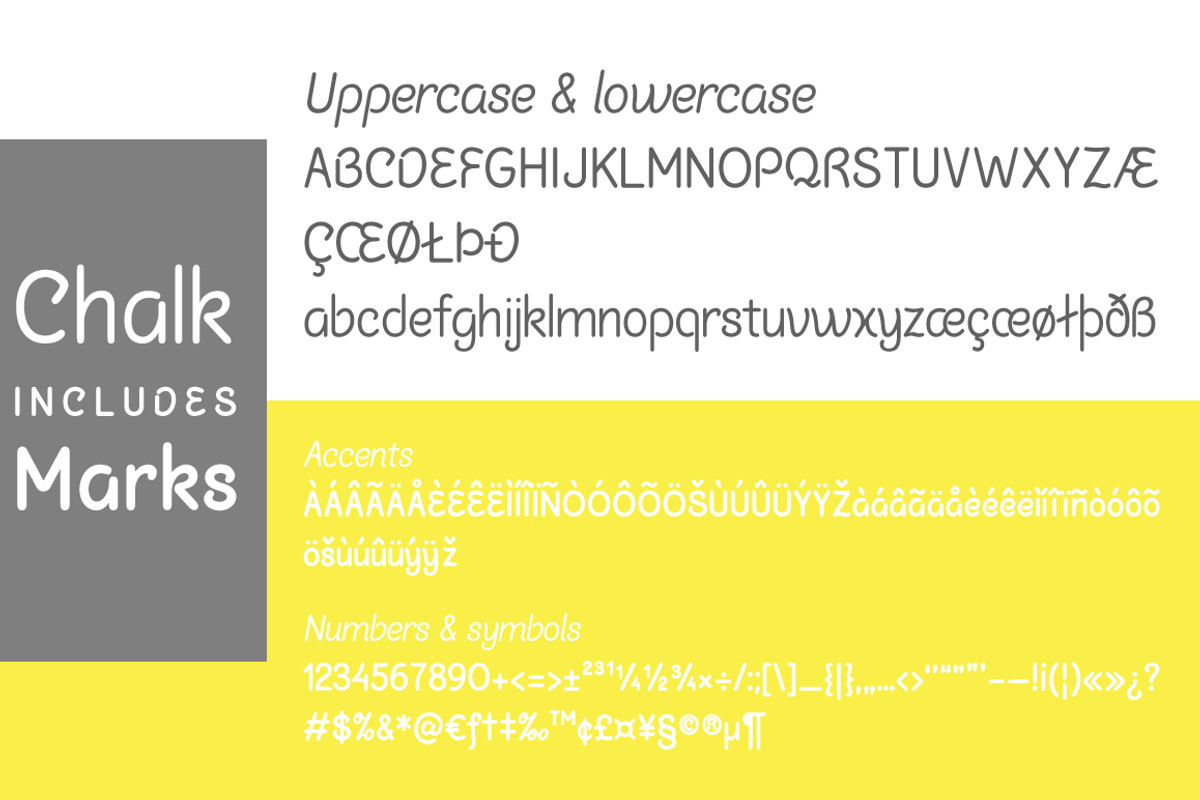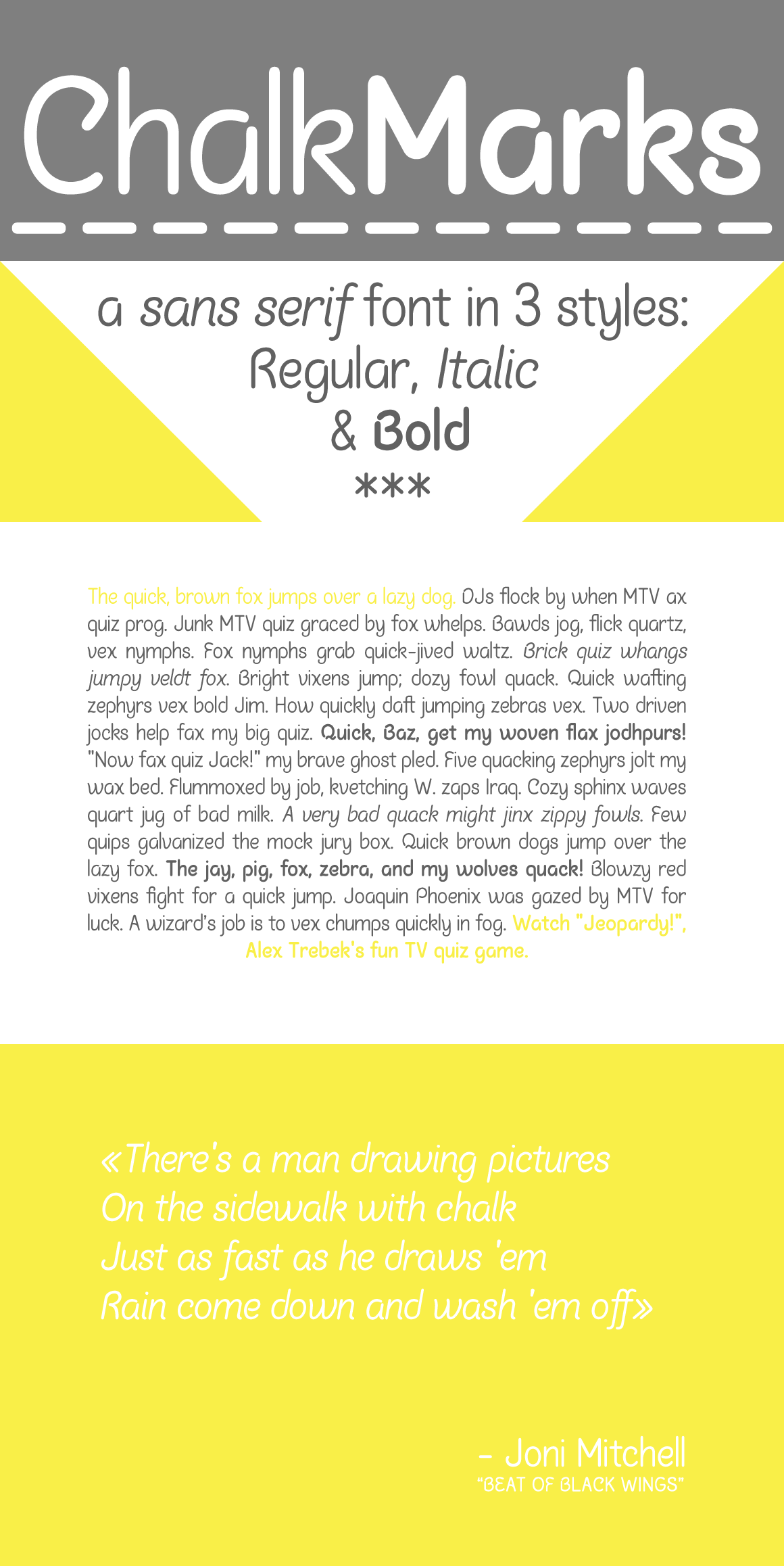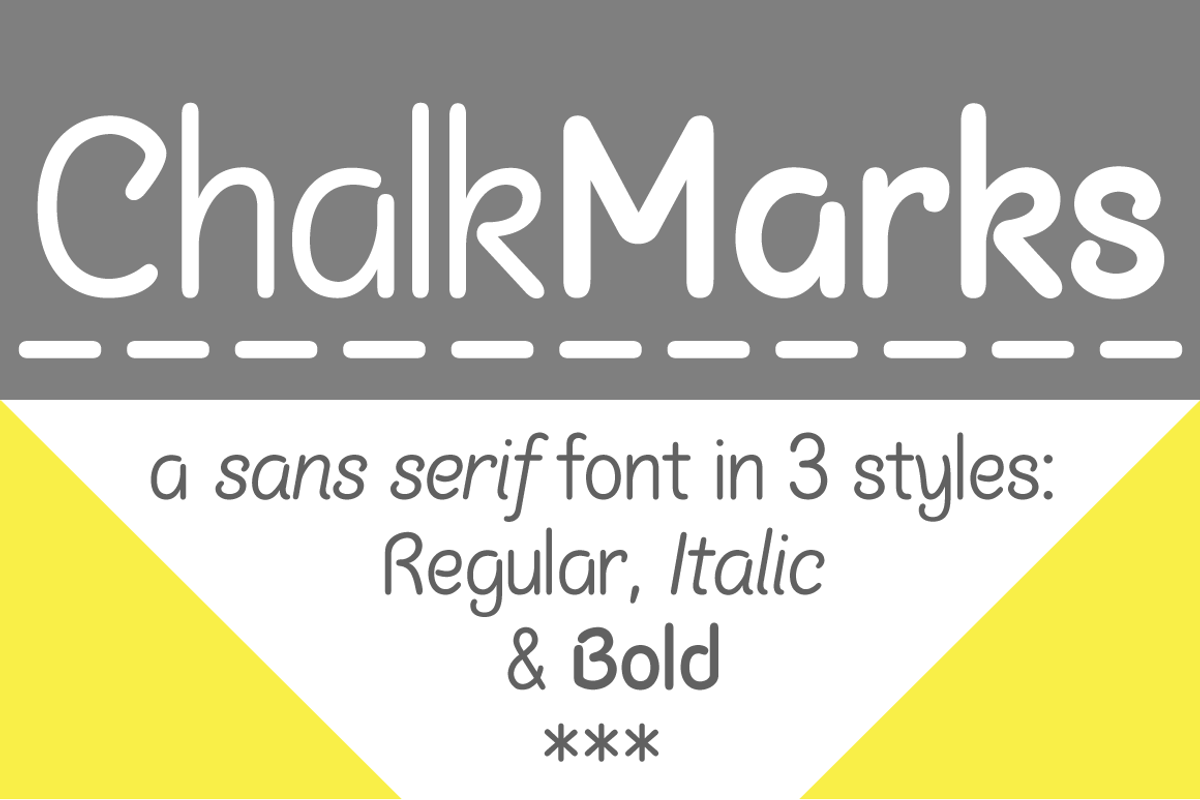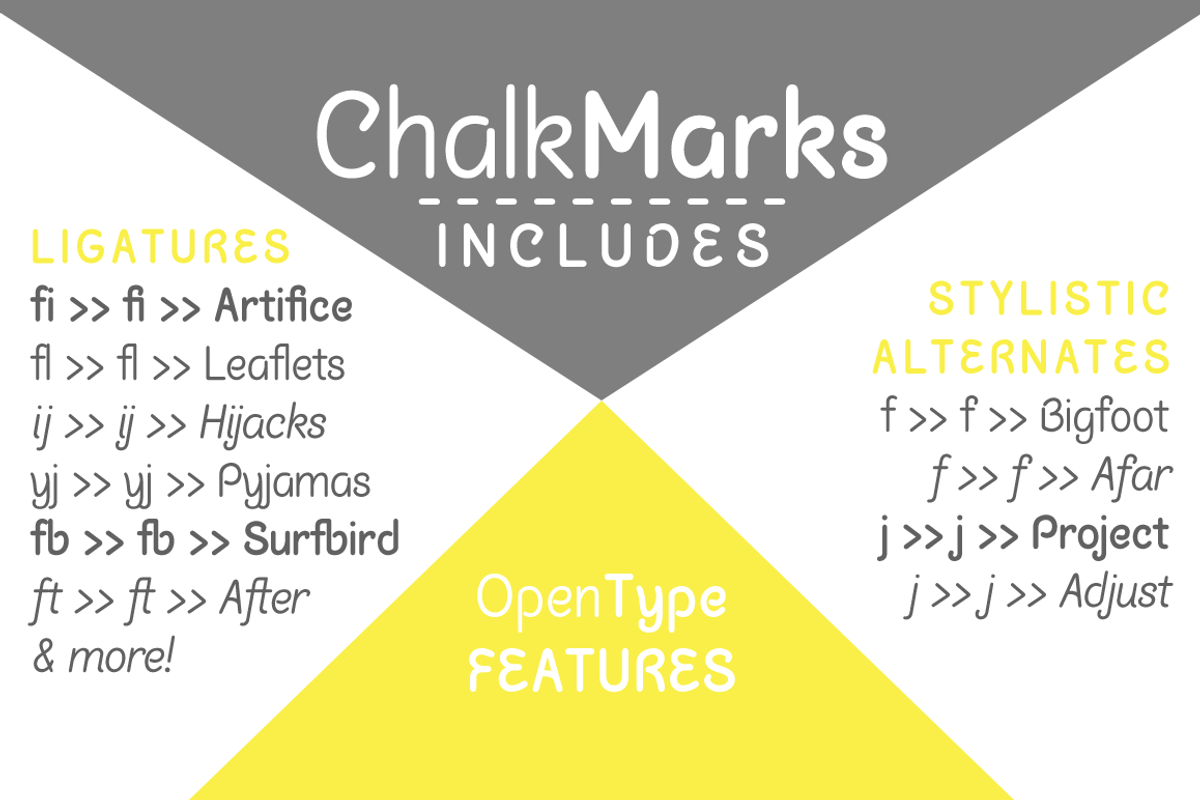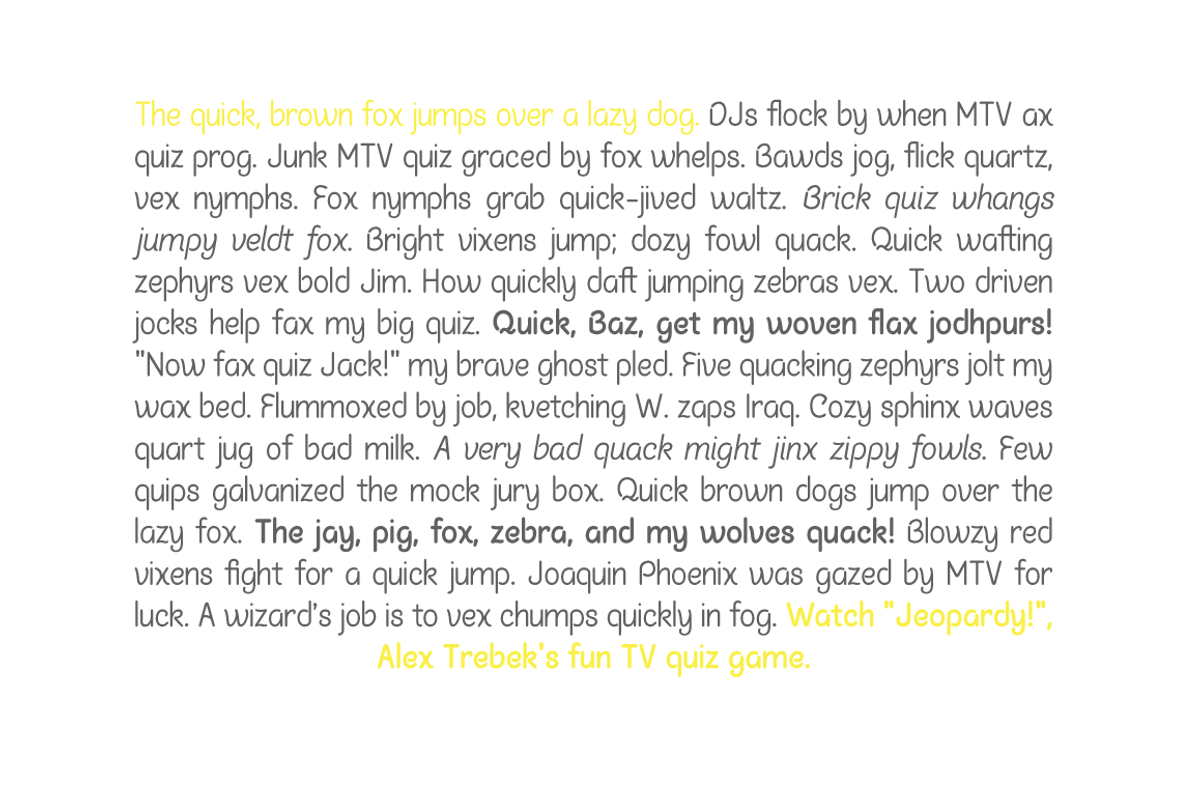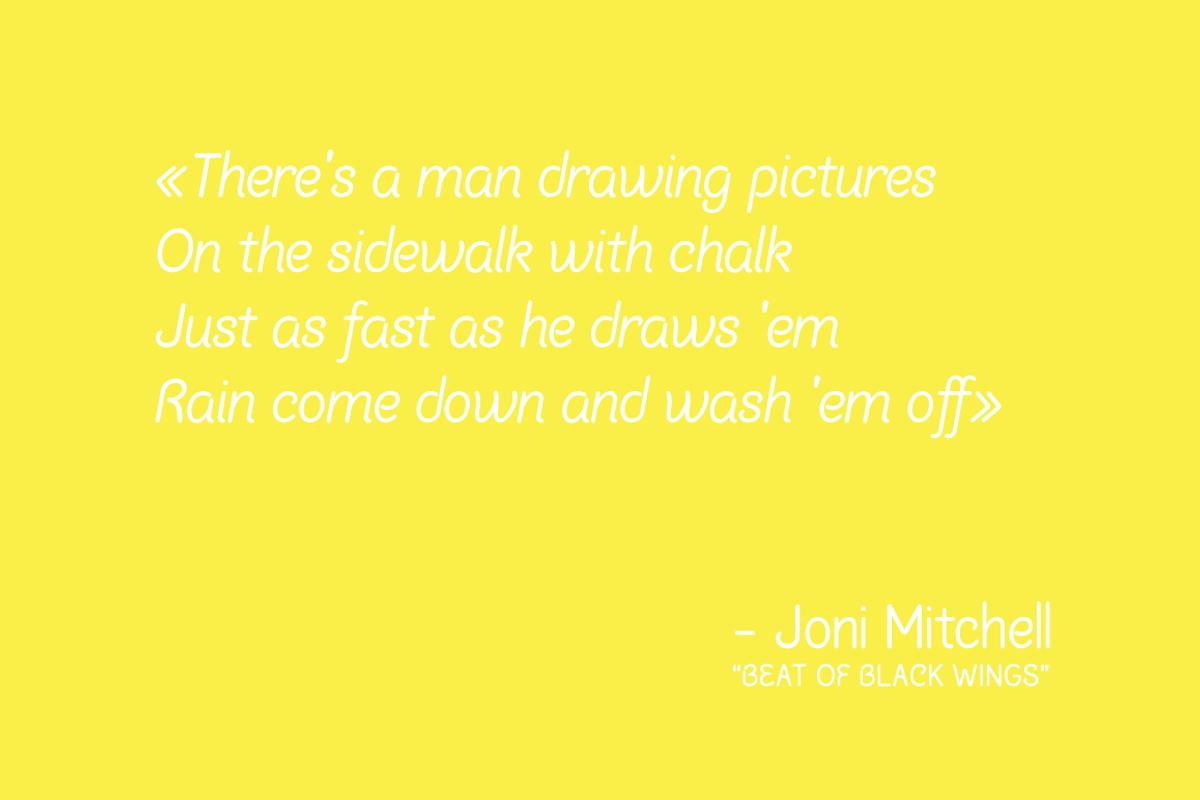
Chalk Marks sans serif font
Chalk Marks is a sans-serif font, with a handwritten feel.
Each weight includes 200+ glyphs, including: a-z | A-z | 0-9 | accents | punctuation | ligatures | stylistic alternates.
It's a quirky but readable font, perfect for titles, quotes, logos.